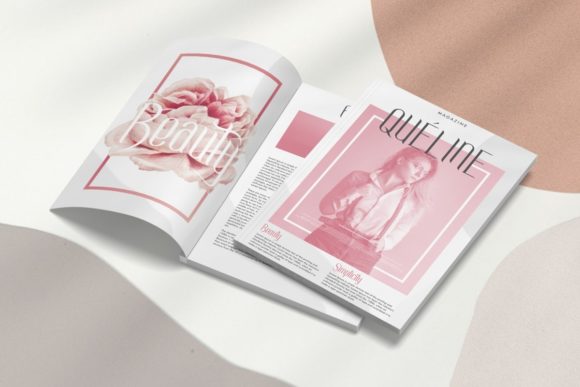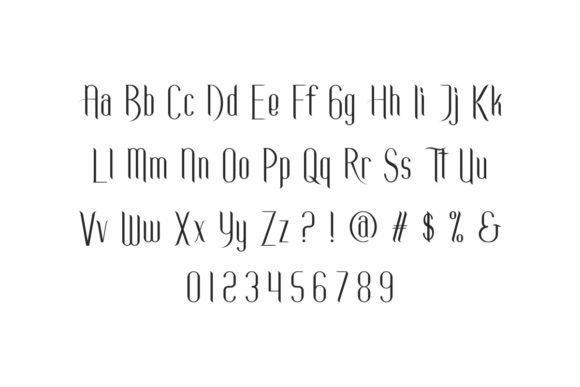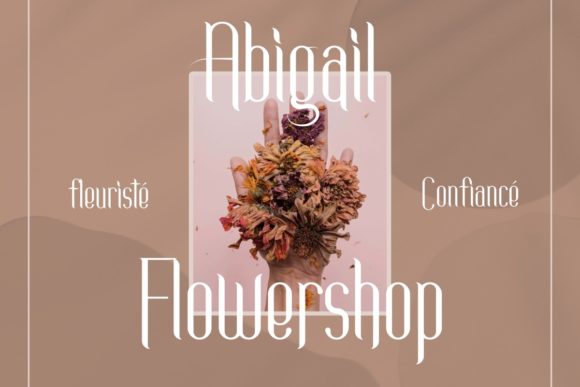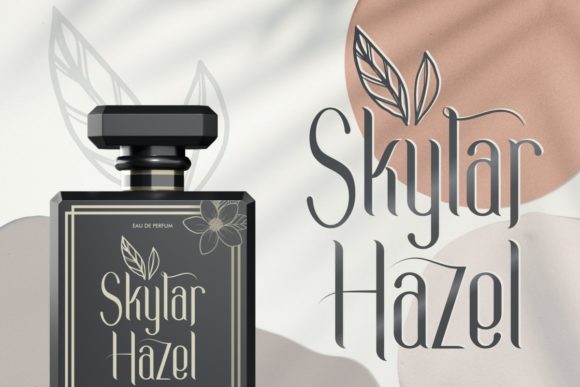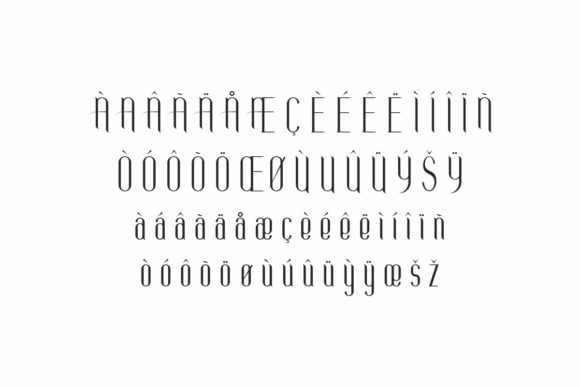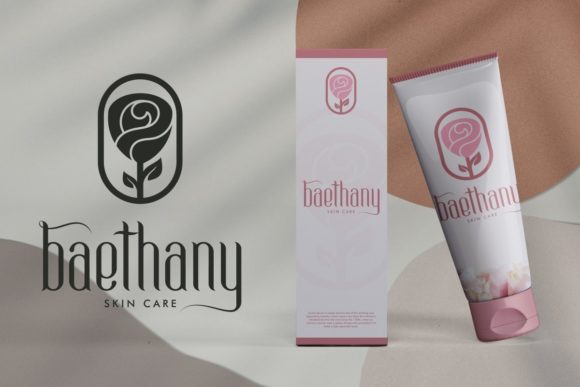
Introducing Harmonias Font: Elevate Your Designs with Delicate Elegance
In the world of typography, a font can make or break a design. For those seeking a touch of elegance and sophistication, Harmonias Font is an exquisite choice. This delicate and thin lettered display font is designed to add a refined flair to your creations, making it perfect for designers and crafters looking to elevate their work.
What Makes Harmonias Font Special?
Harmonias Font stands out for its unique characteristics. It is a PUA (Private Use Area) encoded font, which means that accessing all glyphs and swashes is effortless. This feature allows designers to explore a wide range of creative possibilities without the hassle of complicated font management.
Key Features of Harmonias Font
- Delicate and Thin Lettering: Harmonias boasts a slender and refined lettering style that adds a touch of sophistication to any design.
- PUA Encoded: Enjoy easy access to all glyphs and swashes, making it simple to customize and enhance your designs.
- Display Font: Designed specifically for display purposes, Harmonias Font is perfect for headings, titles, and any prominent text in your designs.
- Ease of Use: Thanks to its PUA encoding, you can effortlessly incorporate a wide variety of glyphs and swashes into your work.
Applications of Harmonias Font
Harmonias Font’s versatility makes it suitable for a range of design projects. Here are some ideal applications:
- Branding and Logos: Add a touch of elegance to your brand’s identity with custom logos and wordmarks.
- Stationery and Paper Crafts: Elevate your stationery, greeting cards, and paper crafts with beautifully styled text.
- Web Design: Use Harmonias Font for website headers, titles, and any element that requires a sophisticated, eye-catching text.
- Social Media Graphics: Stand out on social media with stylish and refined text in your graphics and posts.
- Advertising and Marketing Materials: Enhance your ads, brochures, and marketing materials with a font that exudes elegance and class.
Tips for Using Harmonias Font Effectively
To get the most out of Harmonias Font, consider the following tips:
- Pair with Complementary Fonts: Combine Harmonias with contrasting fonts to create visual interest and hierarchy in your designs.
- Experiment with Swashes: Take advantage of the glyphs and swashes available to add unique touches to your text.
- Adjust Line Spacing: For better readability, ensure appropriate line spacing, especially when using the font for longer texts.
- Play with Colors: While the font itself is elegant, experimenting with different colors can further enhance its impact.
Harmonias Font is a beautiful addition to any designer’s toolkit. Its delicate and thin lettered style, combined with PUA encoding for easy access to glyphs and swashes, makes it a versatile and elegant choice for a wide range of projects. Whether you’re working on branding, web design, or paper crafts, Harmonias Font can help you achieve a sophisticated look that stands out. Add it to your favorite creations and be amazed by the outcome!